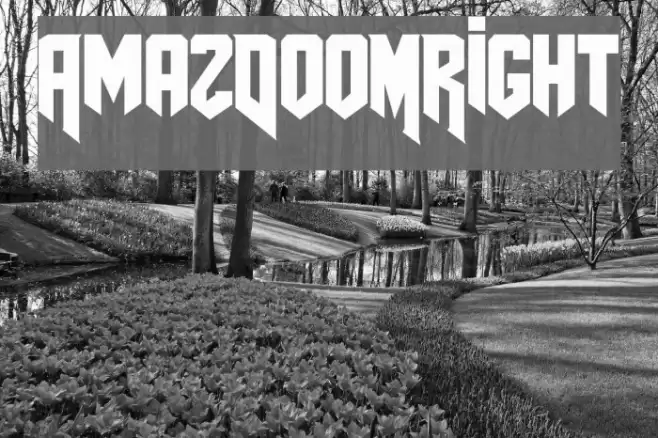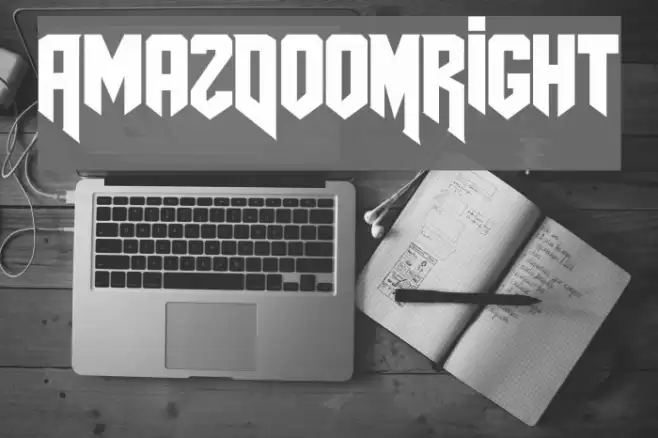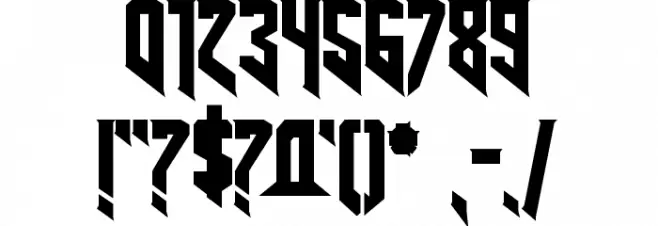
AmazDooMRight Font
AmazDooMRight Description
This font features a bold and aggressive design with sharp, angular edges and a distinct geometric style. The uppercase letters are particularly striking, with a futuristic and edgy appearance that commands attention. The characters are tightly spaced, enhancing the compact and powerful look. The numbers and special characters maintain the same bold and angular aesthetic, ensuring consistency throughout the font. This design is ideal for projects that require a strong and impactful visual presence.
A bold, angular font with a futuristic and aggressive style from Uncategorized fonts.
- Proposed Projects: Ideal for video game titles, movie posters, branding for tech companies, or any project needing a strong, impactful typeface.
- Character Spacing: Tight